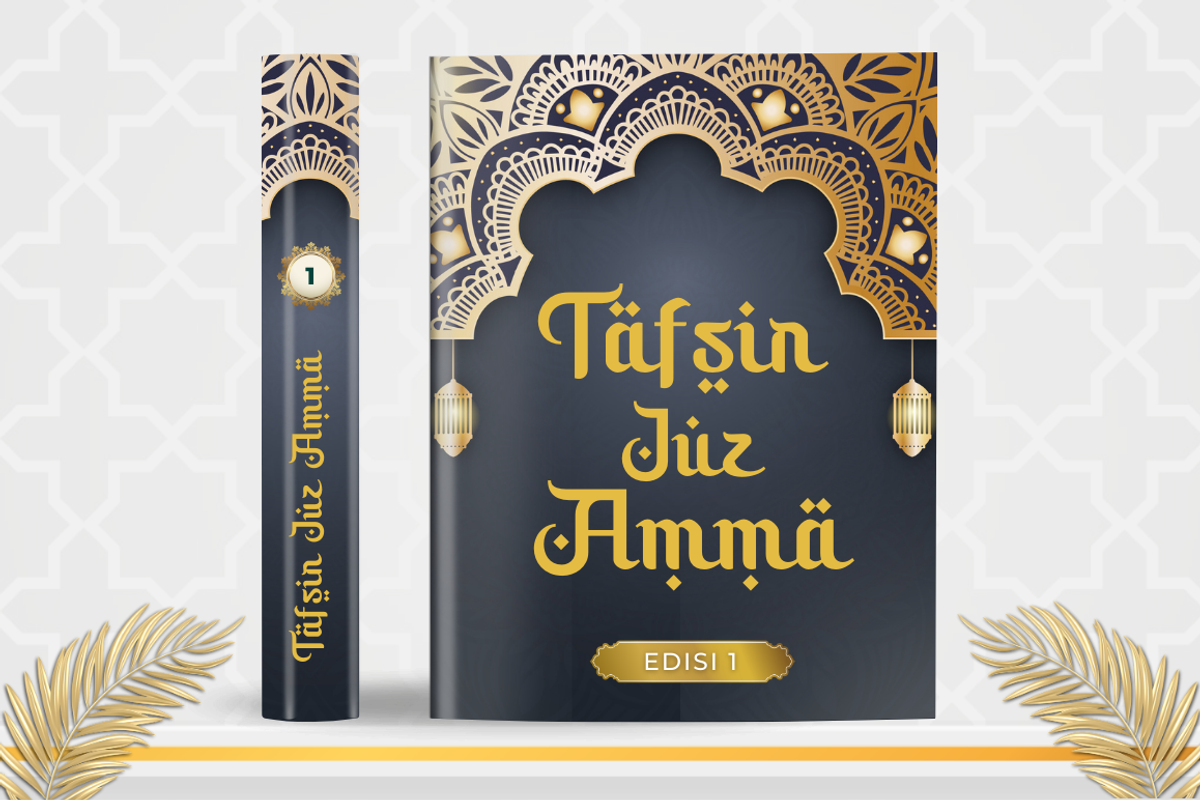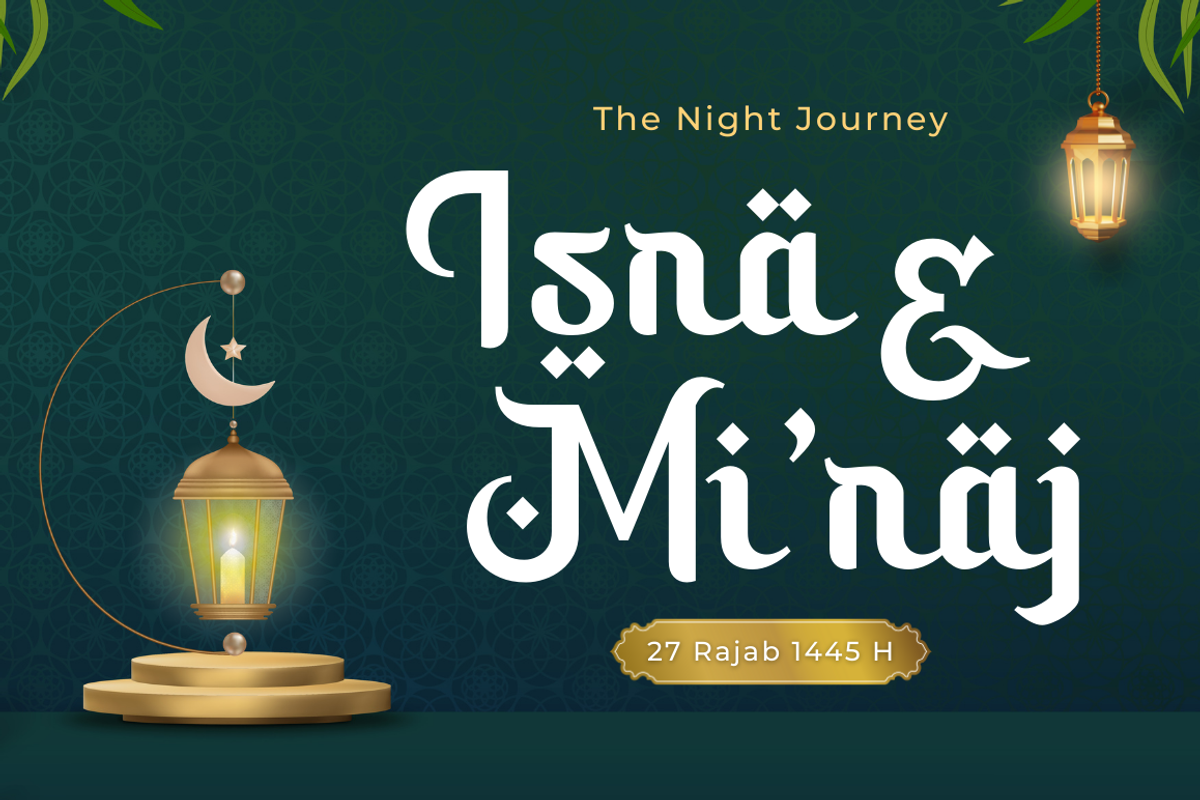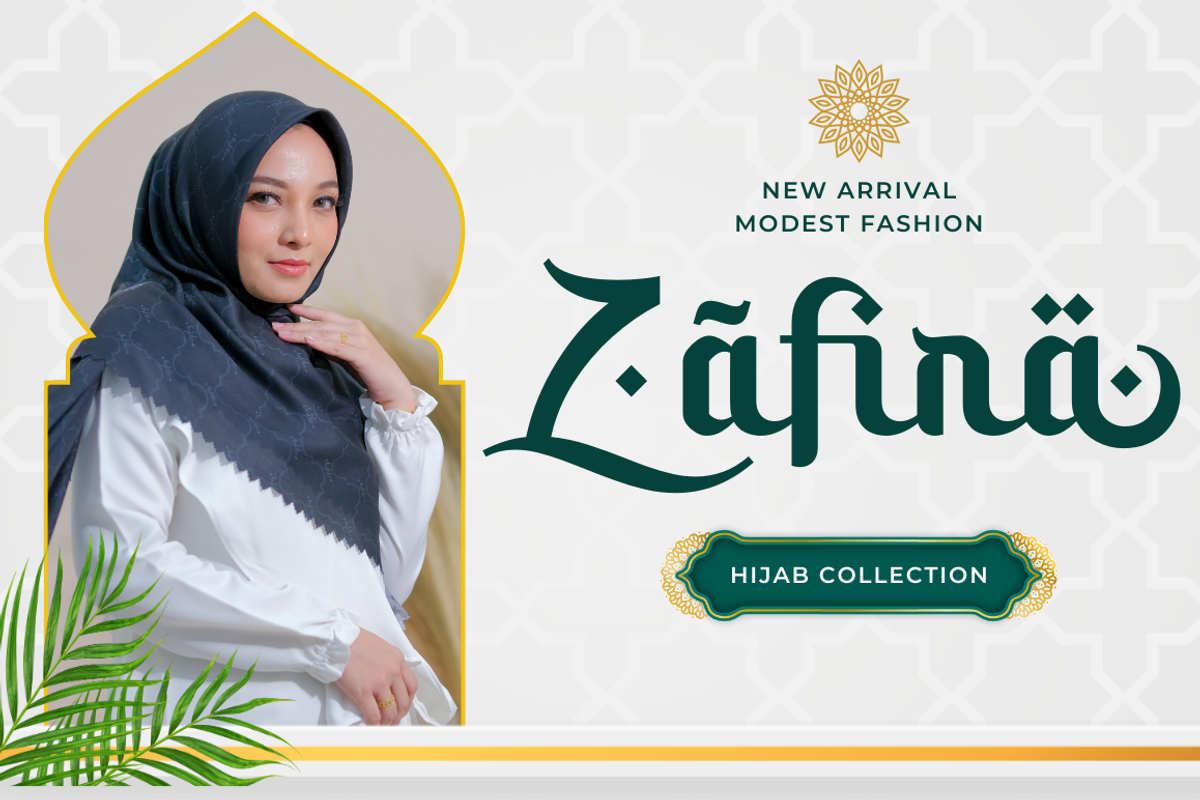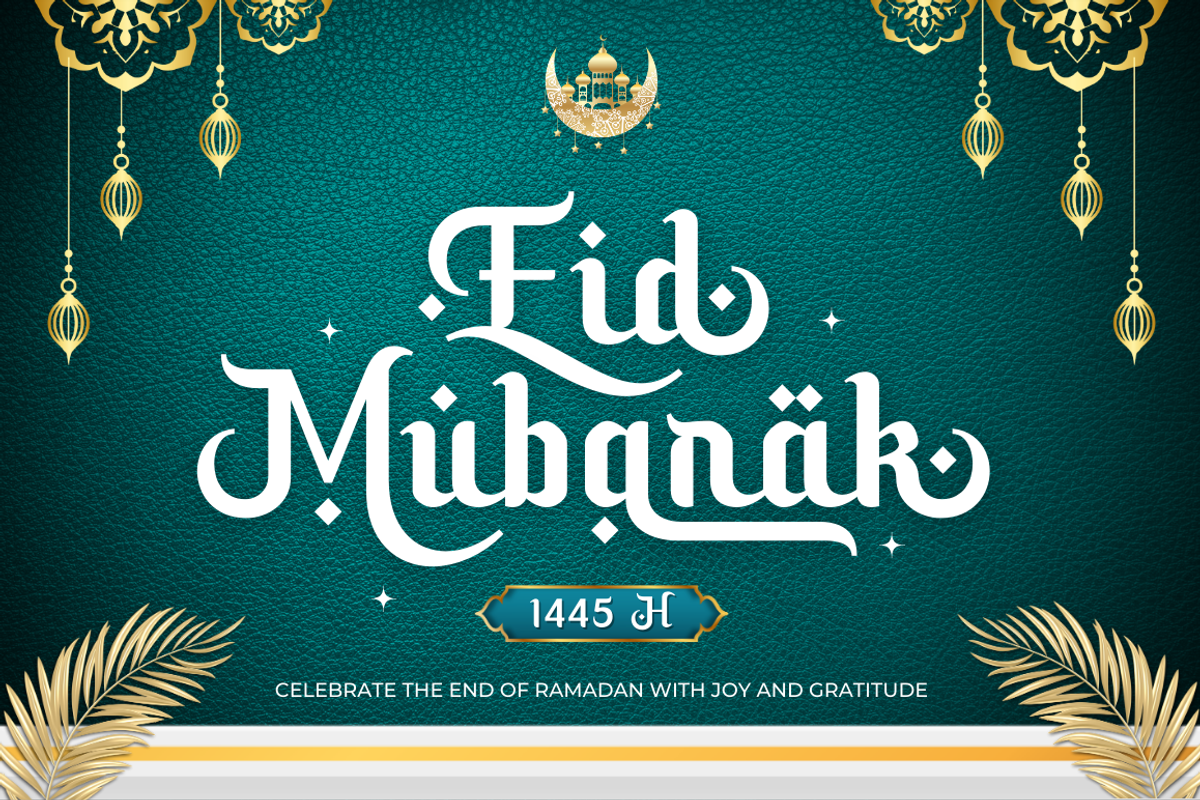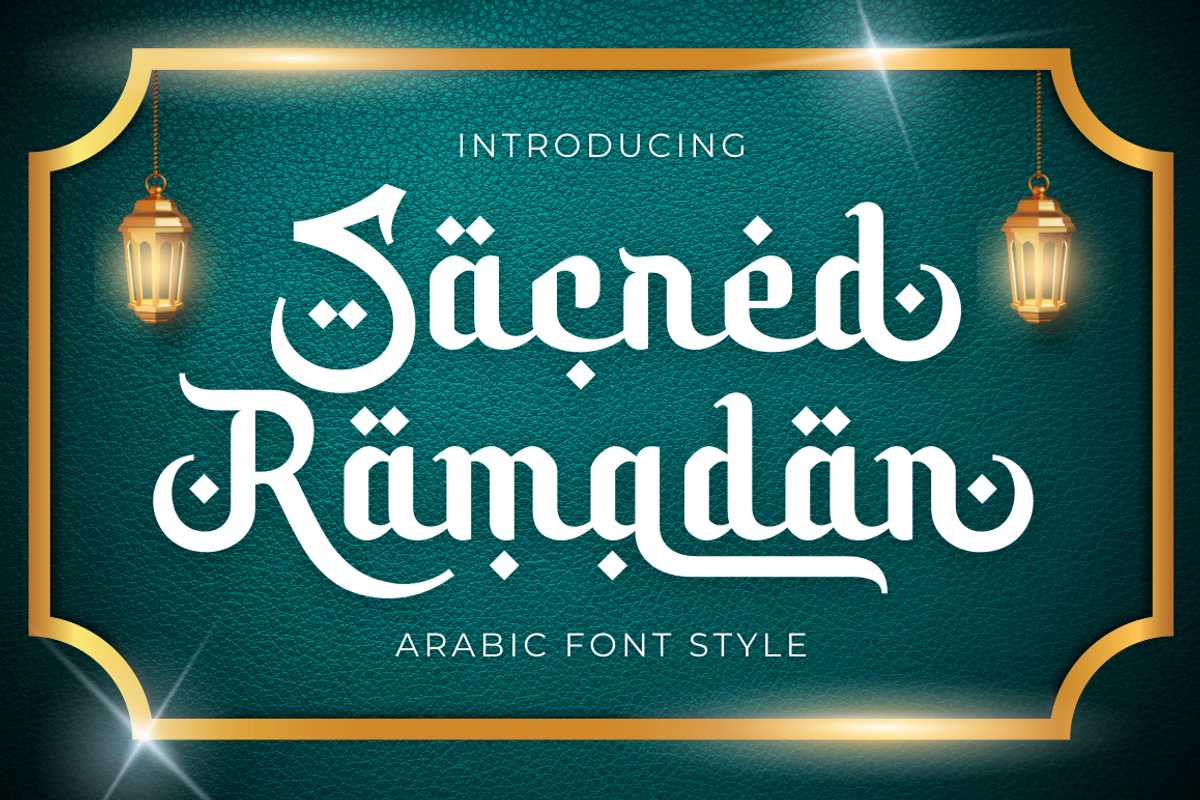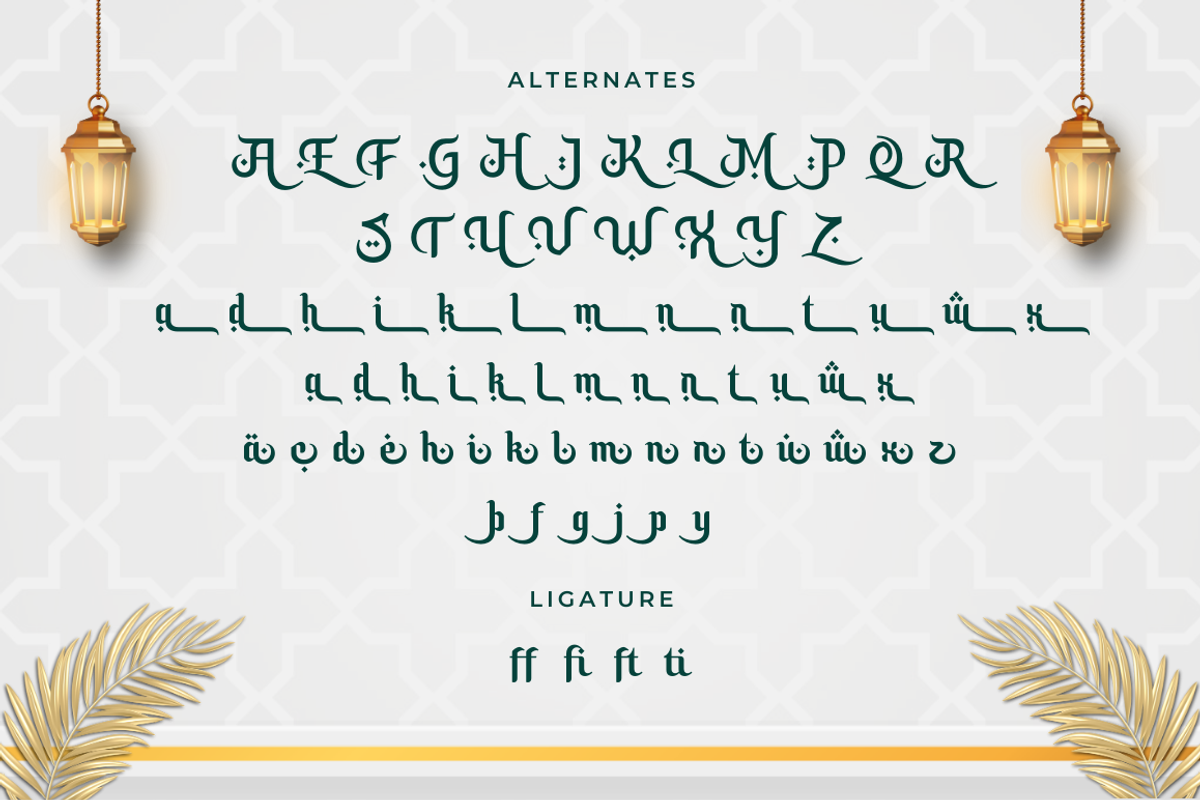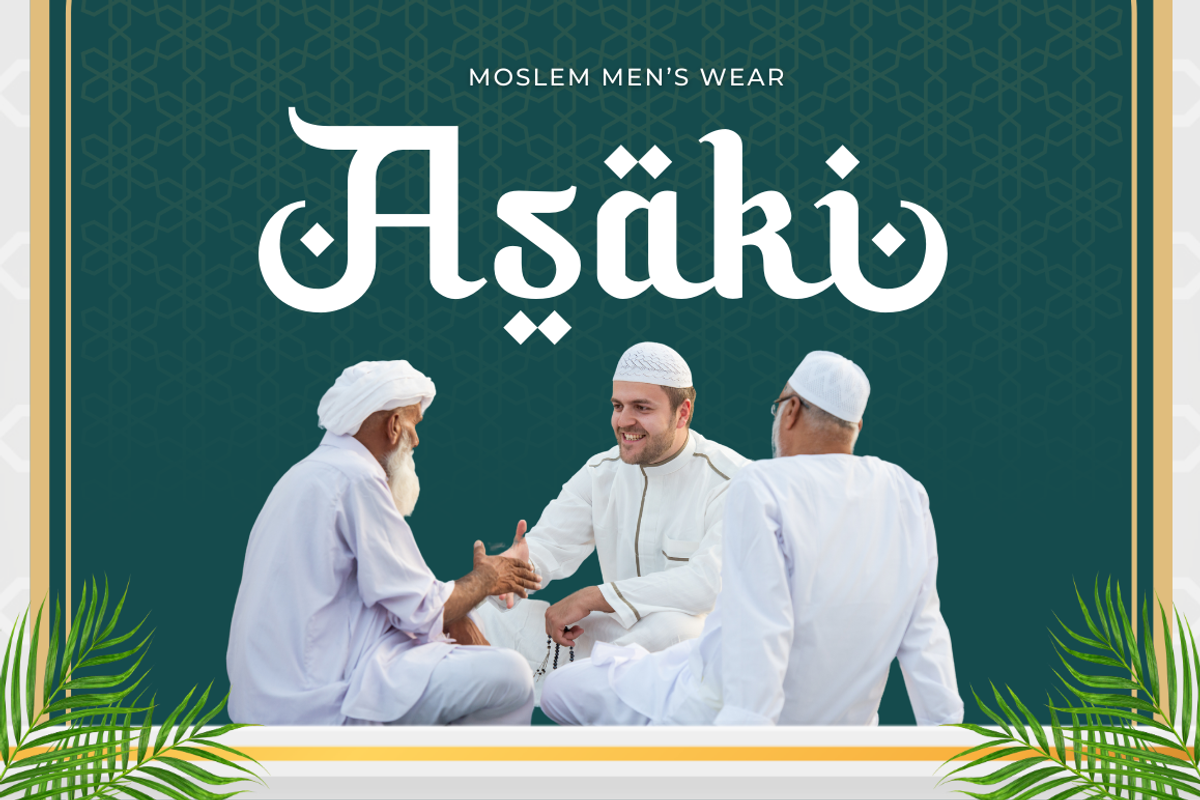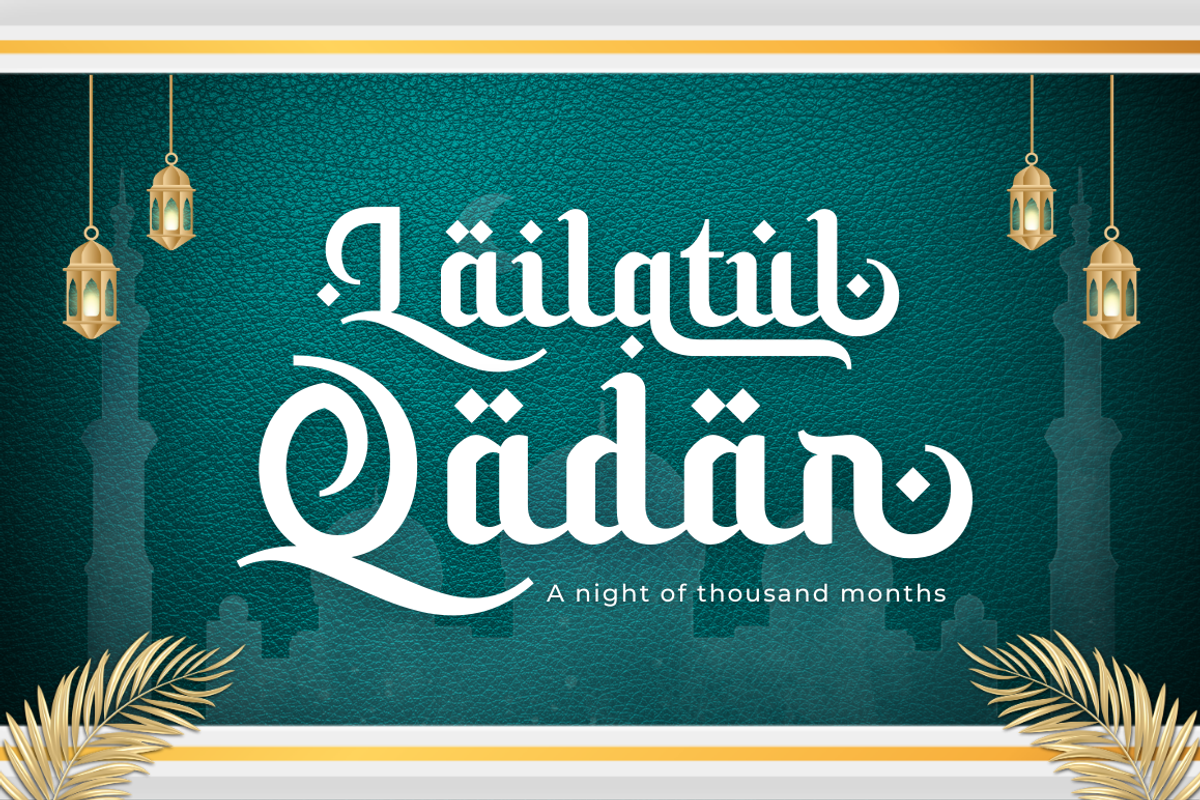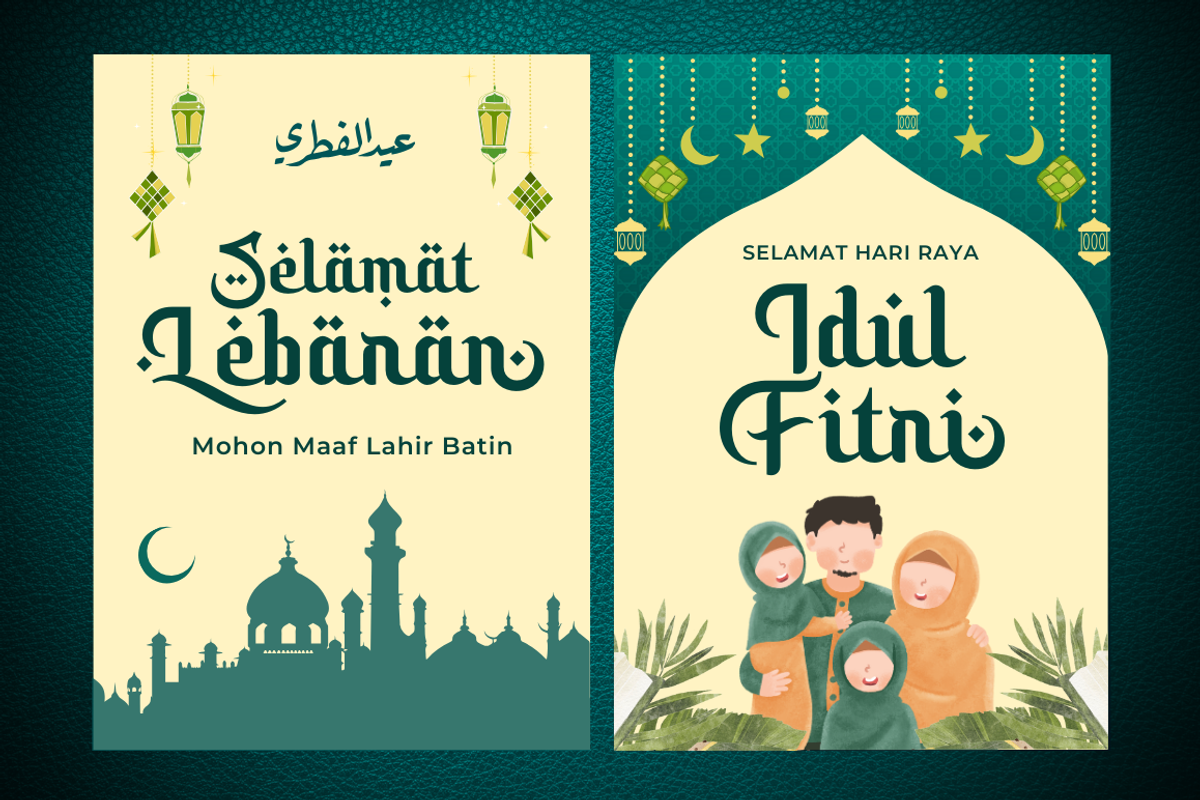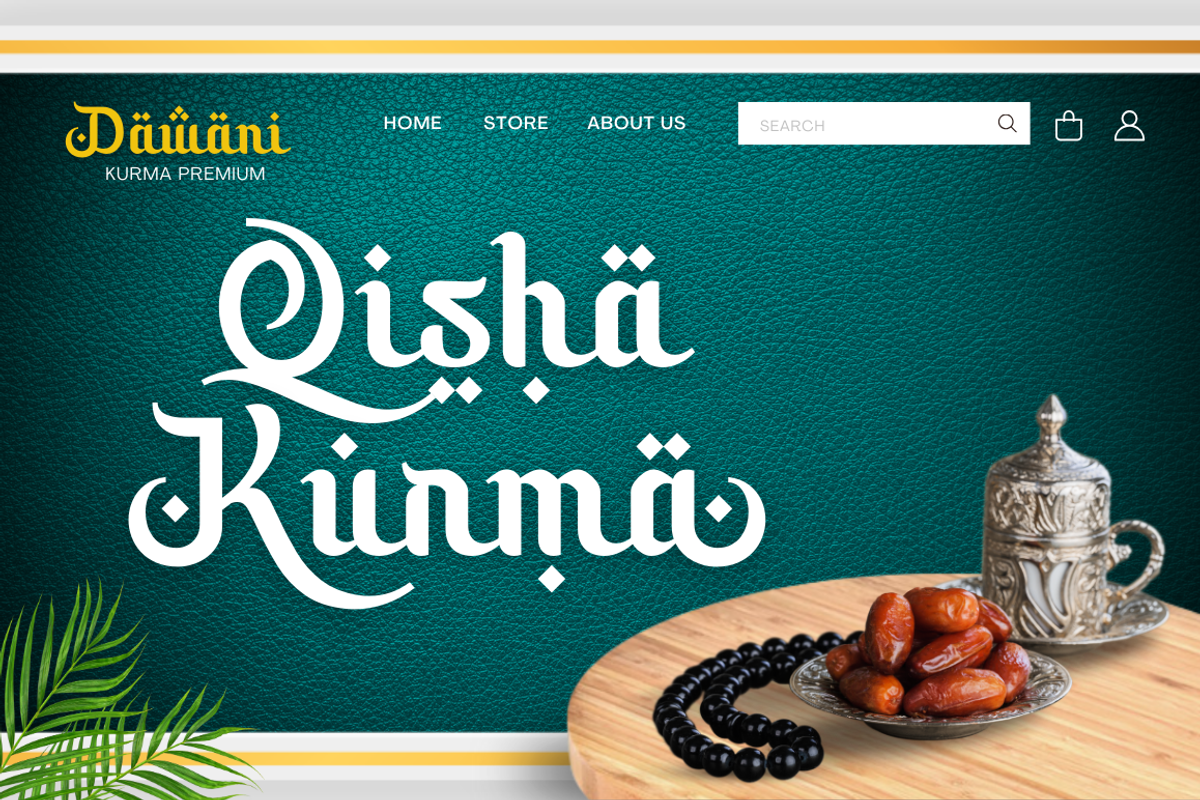
Sacred Ramdhan – Arabic Font Style
Introducing “Sacred Ramdhan,” a bold Arabic script font designed to capture the essence of Ramadan. With its striking letterforms and intricate details, this font embodies the spirituality and significance of the holy month. Featuring alternate uppercase and lowercase characters, “Sacred Ramdhan” offers versatility and authenticity for your Ramadan-themed designs. Perfect for invitations, posters, or social media graphics, this font adds a touch of boldness and reverence to your projects, ensuring they shine with the spirit of Ramadan.